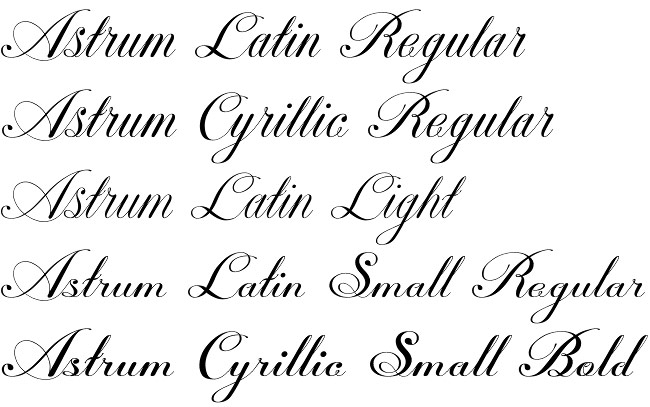
Astrum font
Astrum font by Dusko Joksimovic is a sophisticated and highly decorative handwriting distinguished for its stylish caligraphy letters. The idea of creating Astrum font emerged by the need of an uniquely beautiful wedding design, a task that couldn’t be fulfilled with any of the existing typefaces. All signs indicate that this newborn member of the big Fonts family has the potential of a great beauty queen with its personality, gracefulness and classic appeal.
All the Astrum elements are recognizable by prefined ornaments, incorporated in a delicate manner. Whitespace between the capital letters, lower-case letters, numbers and other symbols are done in a way to minimize the need for kerning.
The Astrum font family perfectly suits every need for luxurious and chic design – wedding cards, luxury packaging, etc.
The character set for Astrum font offers all Western, Central-European, Latin, and Cyrillic characters.